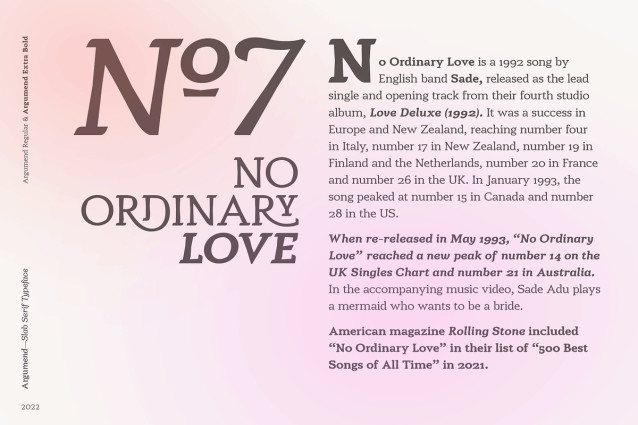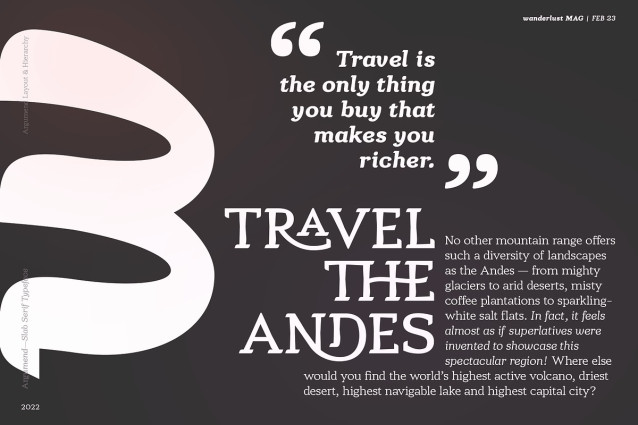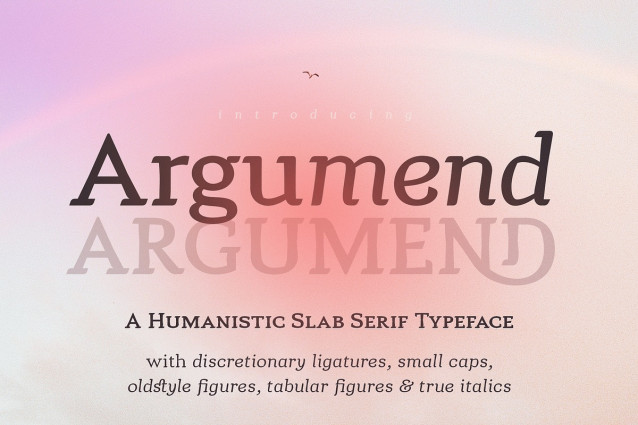
Argumend Font Family
Argumend Font Family is a versatile slab serif typeface with a wide range of Opentype features. Create strong and eye catching headlines with its upper case ligatures or make use of its many weights and true italics to create mindful body copy; either way, Argumend is rich with typographic options to help create attention worthy text.